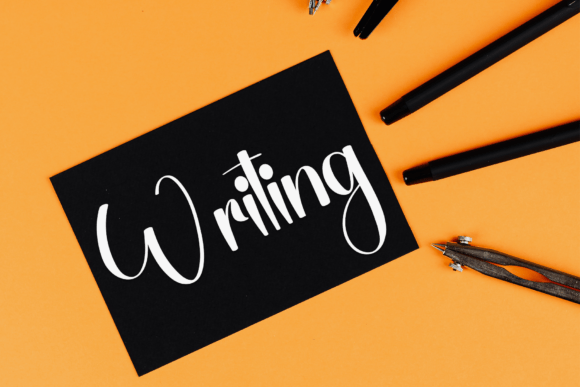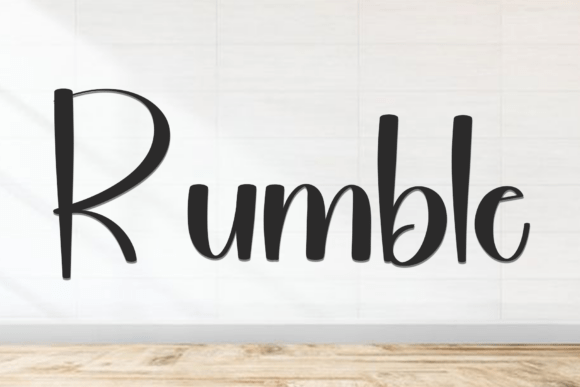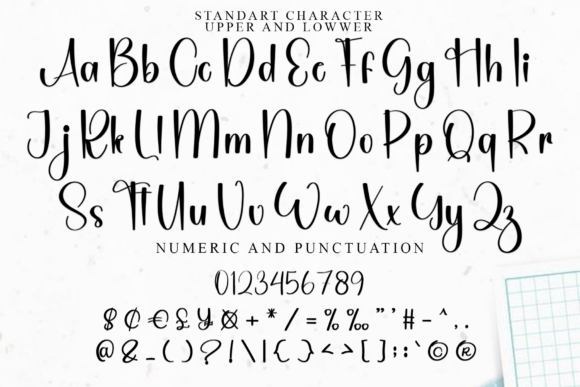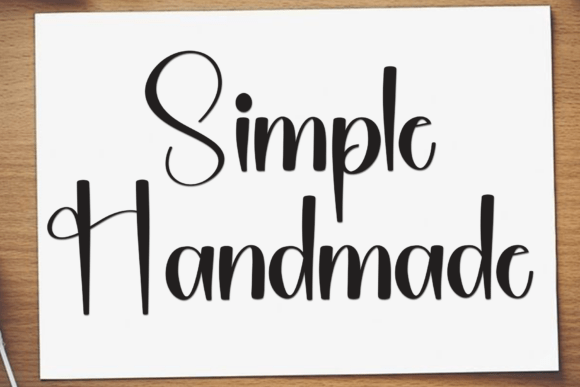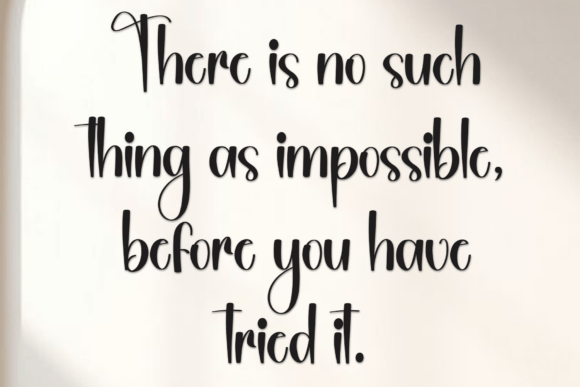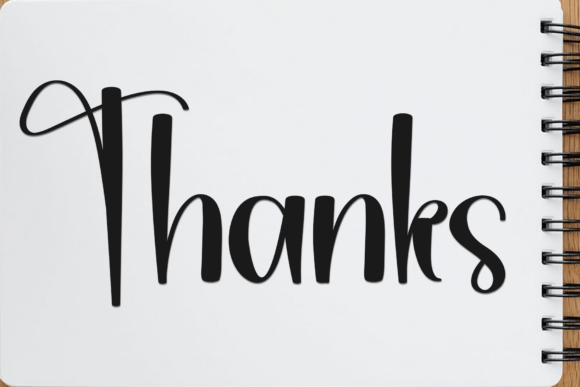
Introducing Autumn Yesterday Font: A Festive and Merry Typeface for the Holiday Season
As the leaves change colors and the air grows crisp, the holiday season is just around the corner. For designers and crafters, this means it’s time to start thinking about creating festive and engaging designs that capture the spirit of the season. One of the most important elements of any design is the typography, and that’s where the Autumn Yesterday Font comes in. In this article, we’ll take a closer look at this beautiful font and explore its features, benefits, and uses.
What is Autumn Yesterday Font?
Autumn Yesterday Font is a decorative typeface that is specifically designed to evoke the feeling of the holiday season. With its whimsical flair and festive elements, this font is perfect for adding a touch of enchantment to your designs. Whether you’re creating greeting cards, gift tags, or holiday-themed projects, Autumn Yesterday Font is sure to bring a cheerful and nostalgic ambiance to your words.
Key Features of Autumn Yesterday Font
So, what makes Autumn Yesterday Font so special? Here are just a few of its key features:
- Decorative elements: Autumn Yesterday Font features a range of decorative elements, including swashes, flourishes, and ligatures, that add a touch of magic to your designs.
- Whimsical flair: This font has a playful, whimsical feel that’s perfect for capturing the spirit of the holiday season.
- Festive and merry: This font is specifically designed to evoke the feeling of the holiday season, making it perfect for Christmas, Halloween, Thanksgiving, and other holiday-themed projects.
Benefits of Using Autumn Yesterday Font
So, why should you choose Autumn Yesterday Font for your holiday designs? Here are just a few benefits:
- Adds a touch of enchantment: This font adds a touch of magic to your designs, making them stand out from the crowd.
- Perfect for holiday-themed projects: Autumn Yesterday Font is specifically designed for holiday-themed projects, making it a great choice for greeting cards, gift tags, and other seasonal designs.
- Versatile: Autumn Yesterday Font can be used for a range of holiday-themed projects, from Christmas and Halloween to Thanksgiving and more.
Uses for Autumn Yesterday Font
So, what can you use Autumn Yesterday Font for? Here are just a few ideas:
- Greeting cards: Add a touch of magic to your holiday greeting cards with this beautiful font.
- Gift tags: Use Autumn Yesterday Font to create festive and personalized gift tags.
- Holiday-themed projects: This font is perfect for holiday-themed projects, such as Christmas decorations, Halloween costumes, and Thanksgiving centerpieces.
- Social media graphics: Use Autumn Yesterday Font to create festive and engaging social media graphics for the holiday season.
Tips for Using Autumn Yesterday Font
Here are a few tips for using Autumn Yesterday Font:
- Experiment with different sizes and colors: Don’t be afraid to experiment with different sizes and colors to find the perfect look for your design.
- Use it with other festive fonts: Autumn Yesterday Font pairs well with other festive fonts, so don’t be afraid to combine it with other decorative typefaces.
- Pay attention to spacing and kerning: As with any font, make sure to pay attention to spacing and kerning to ensure that your design looks its best.
Autumn Yesterday Font is a beautiful and festive typeface that’s perfect for capturing the spirit of the holiday season. With its decorative elements, whimsical flair, and PUA encoding, this font is easy to use and adds a touch of enchantment to any design. Whether you’re a designer or crafter, Autumn Yesterday Font is a great choice for holiday-themed projects, from greeting cards and gift tags to social media graphics and more. So why wait? Download Autumn Yesterday Font today and let your typography shine with the magic of the holiday season!